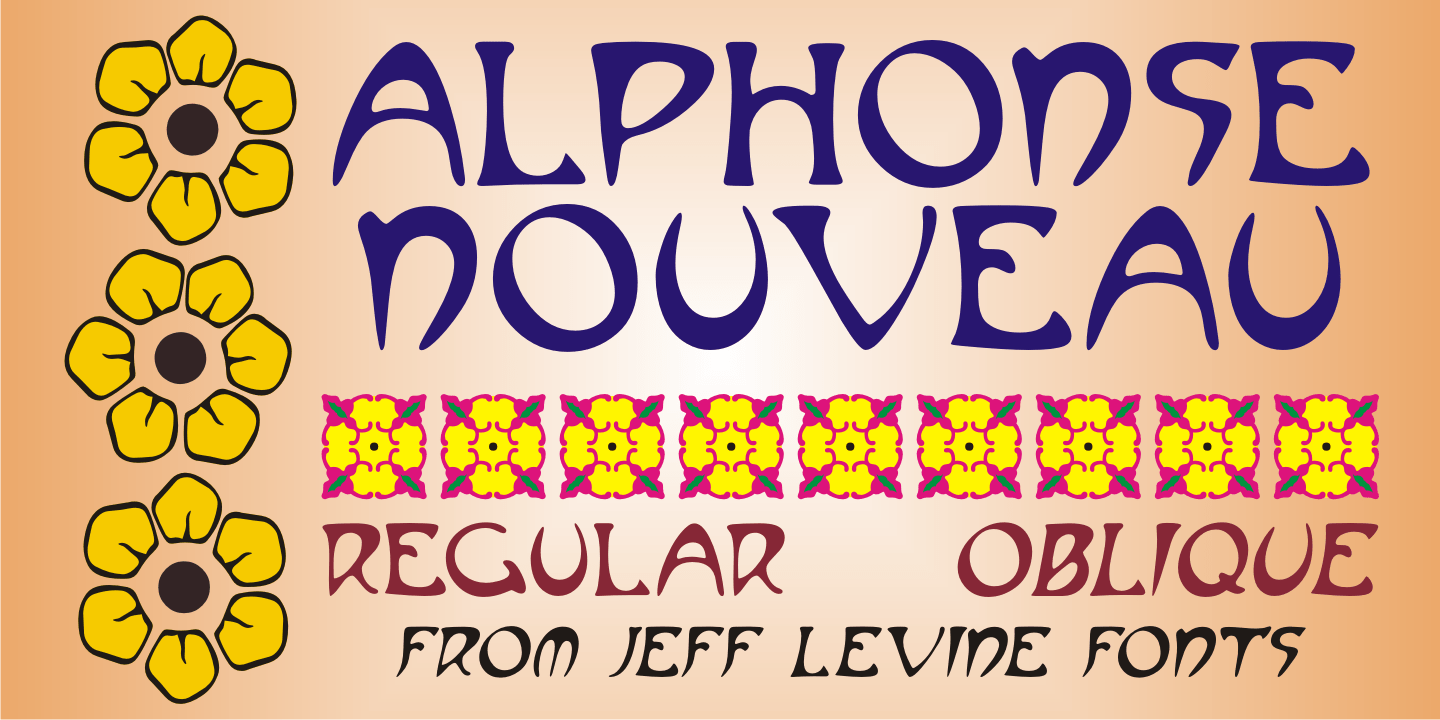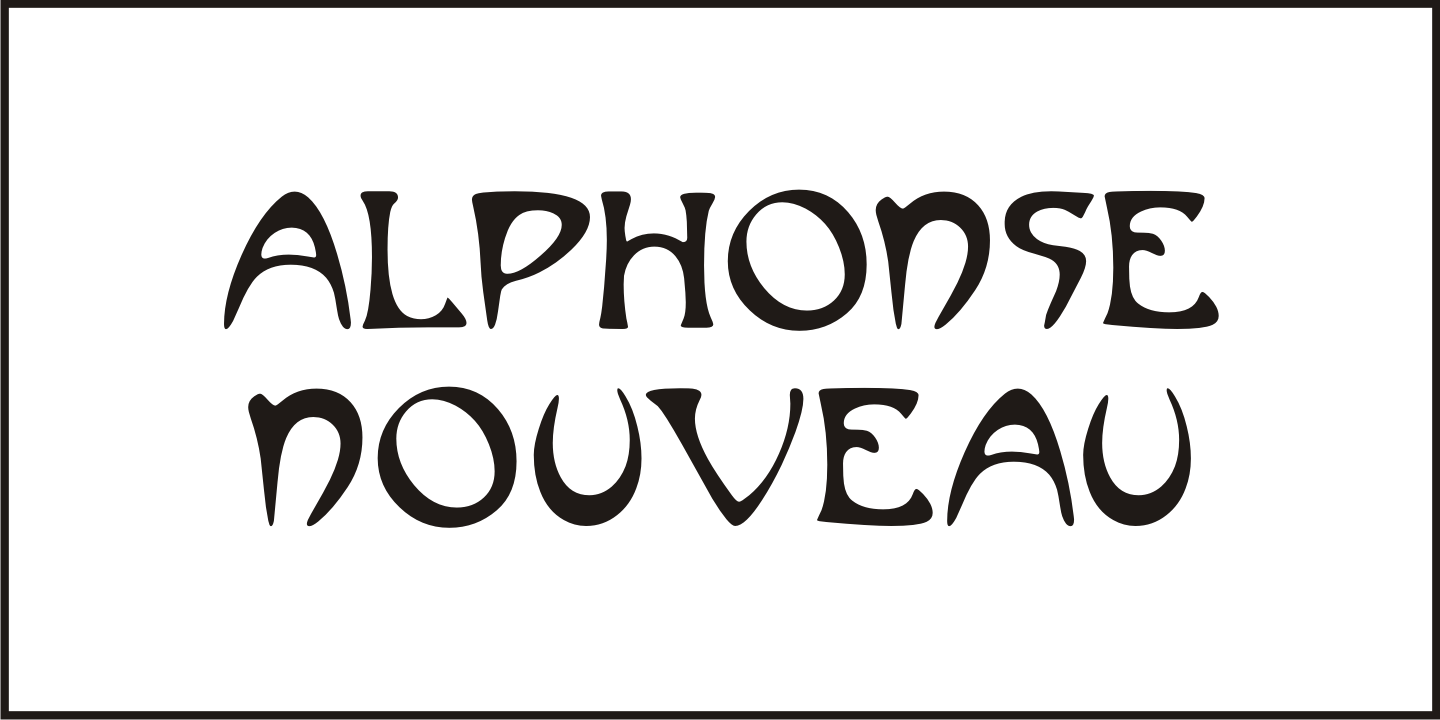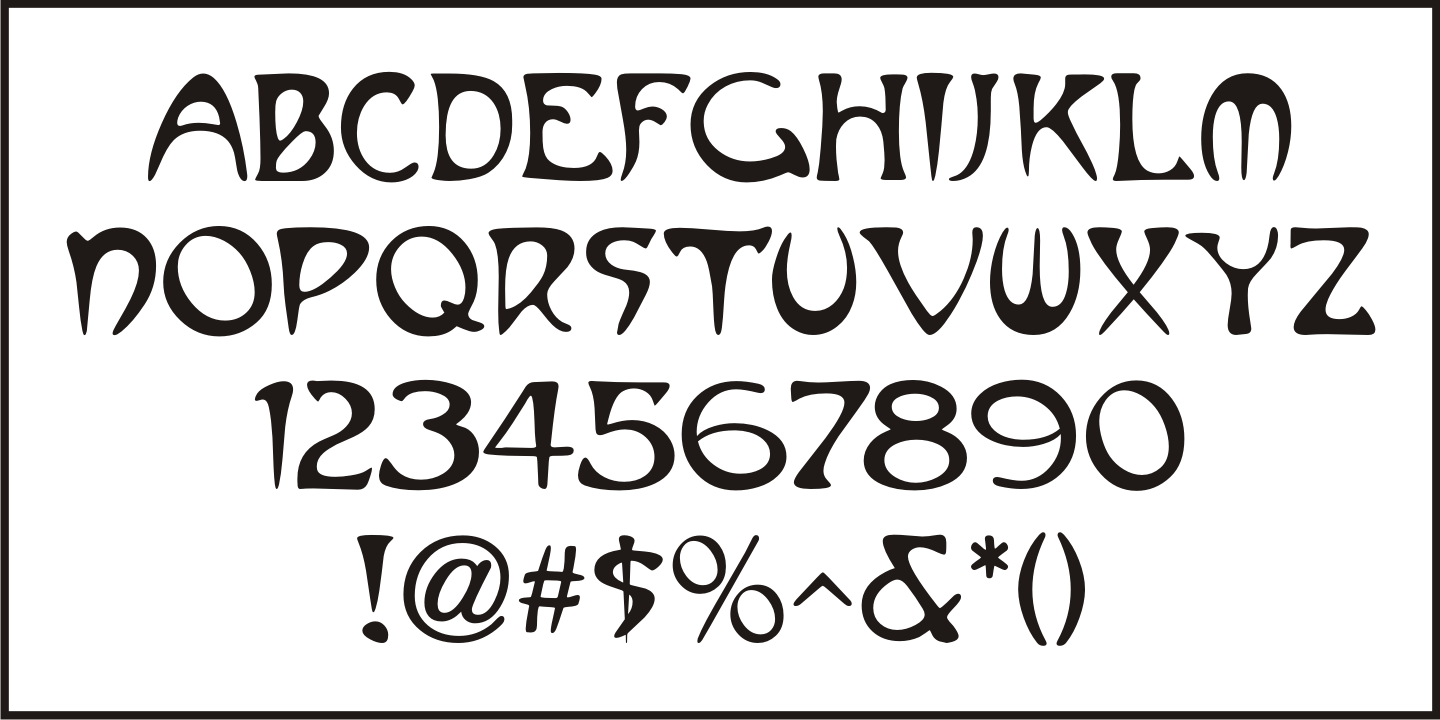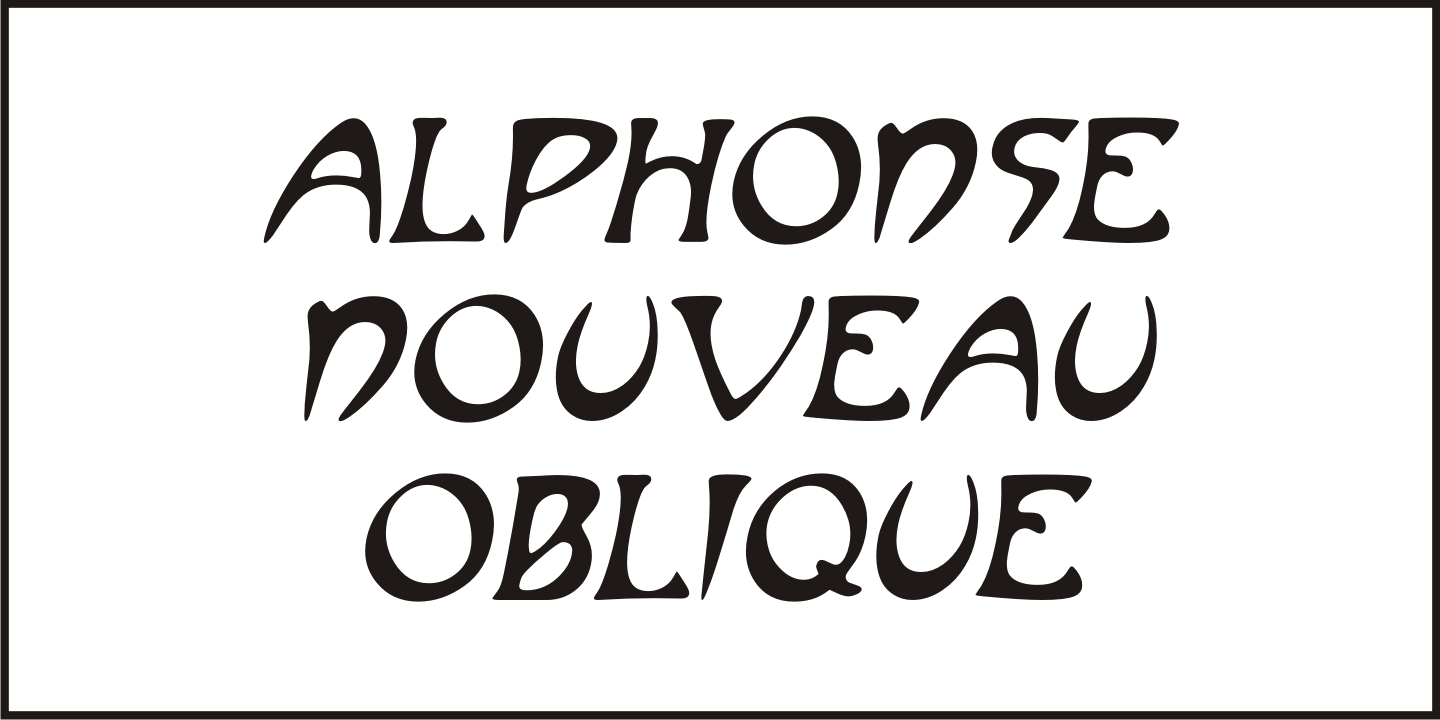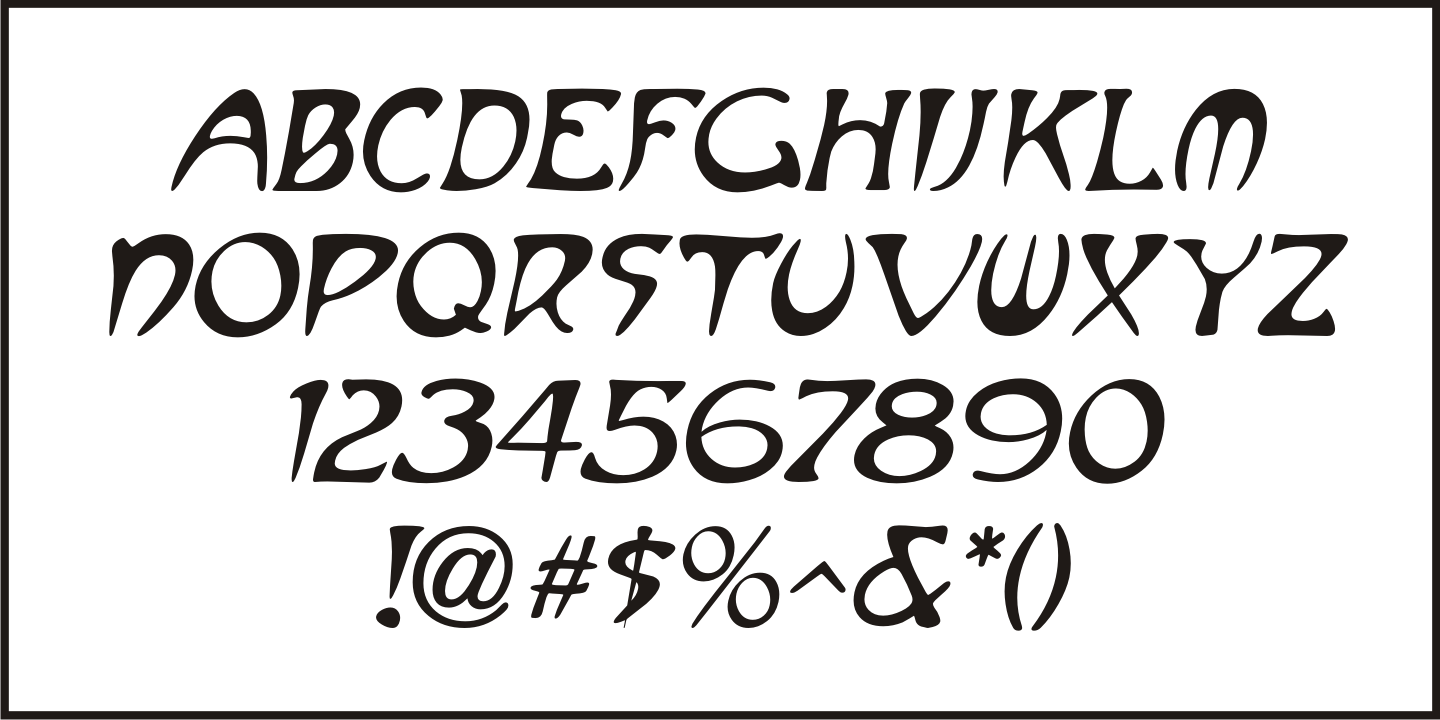
Alphonse Nouveau
Alphonse Nouveau JNL is based on the lettering style of famed Art Nouveau illustrator Alphonse Mucha, and is available in both regular and oblique versions.
Alphonse Nouveau by Jeff Levine Fonts